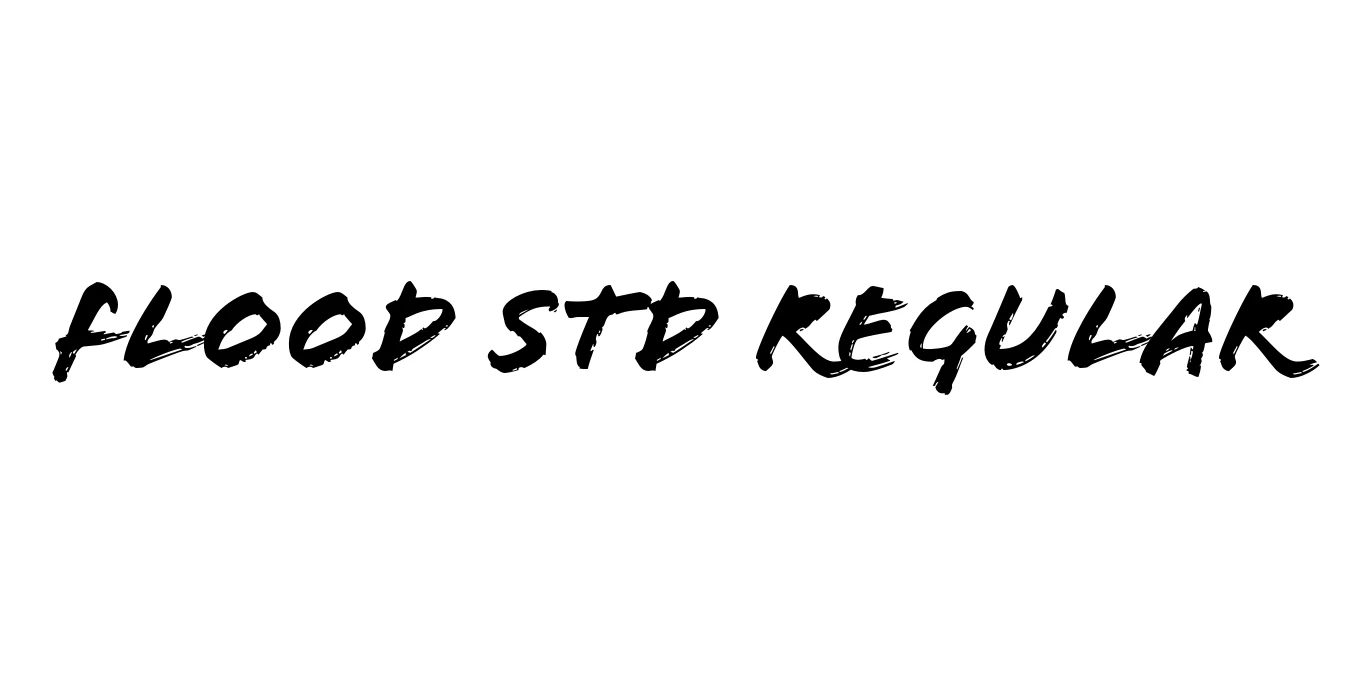
Flood Std Regular
Designed by Joachim Müller-Lancé
| Font Name | Flood Std |
| Category | Script / Brush |
| Designer | Joachim Müller-Lancé |
| Similar Fonts | ITC Blaze, Permanent Marker, Brush Script MT |
Flood Std Regular was designed by the talented Joachim Müller-Lancé in 1997 and subsequently released through Adobe. This typeface is a high-energy, expressive brush script that captures the spontaneous and aggressive feel of handwriting created with a dry brush on a textured surface. Its irregular edges and varying stroke weights provide a raw, authentic quality that makes it a favorite for designers aiming for a hand-crafted yet professional aesthetic.
As part of the Adobe Originals program, Flood Std Regular stands out for its unique blend of craftsmanship and digital versatility. It is particularly effective for projects that require a sense of urgency, motion, or a street-inspired look. Over the decades, it has maintained its popularity in various media, from music album covers to high-impact advertising, proving its longevity as a staple expressive script font.
Flood Std Regular Best Uses
High-impact headlines and attention-grabbing promotional banners.
Urban streetwear designs and graphic t-shirts.
Dynamic Instagram stories and engaging YouTube thumbnails.
Alternative branding and music-related visual identities.